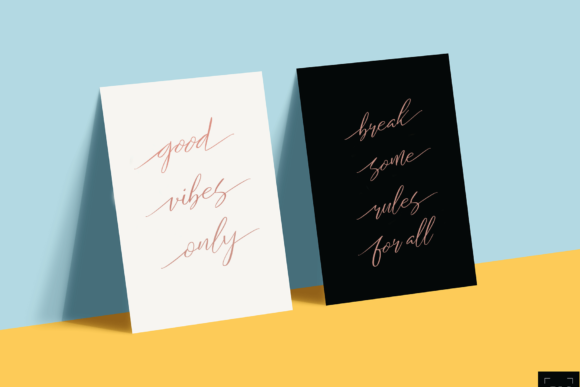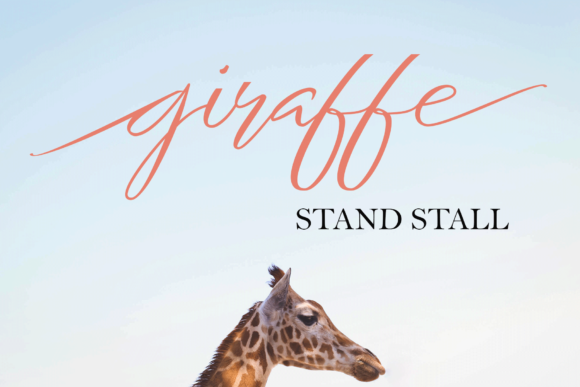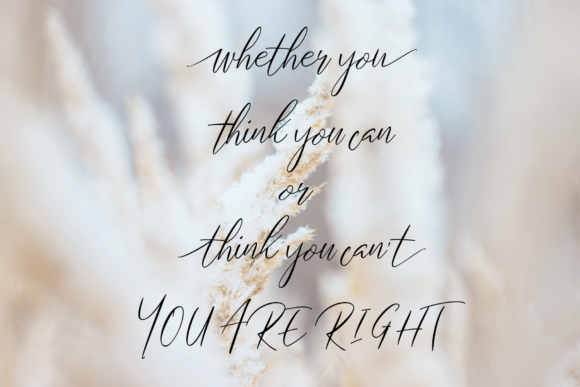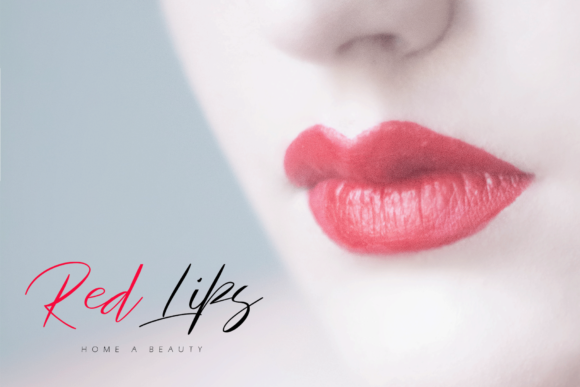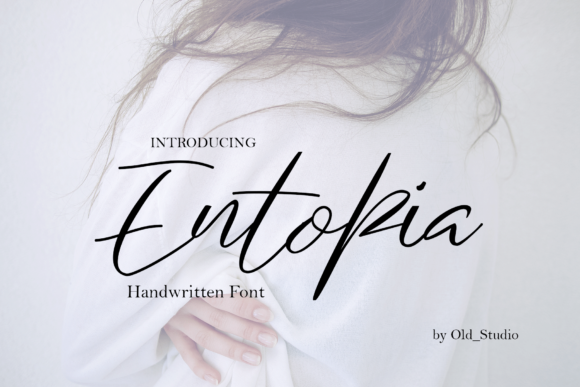
Entopia Script Font
Hi Ladies and Gentleman! Entopia Font is a stylish calligraphy font that features a varying baseline, smooth line, classic and elegant touch. Entopia is a beautiful and modern handwriting script typeface. Entopia has multiple international language support and includes a full set of lovely uppercase and lowercase letters, multilingual symbols, numerals, punctuation and ligatures.